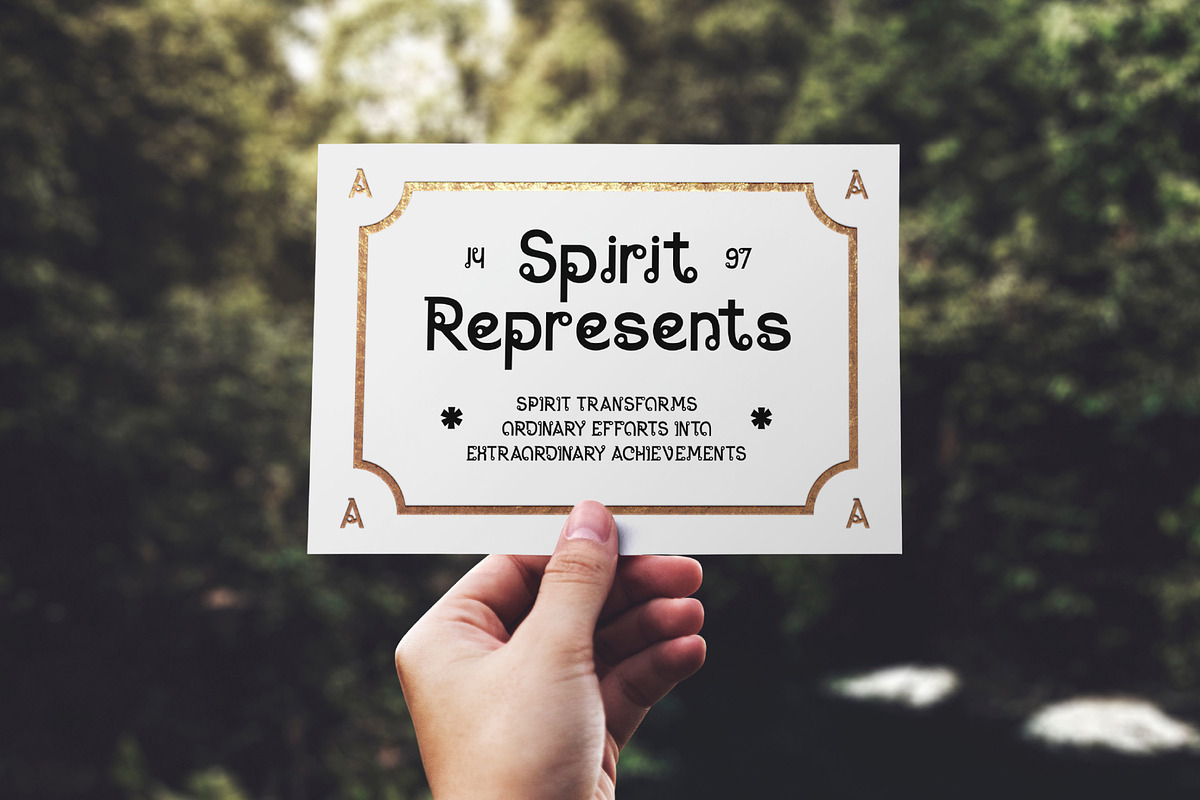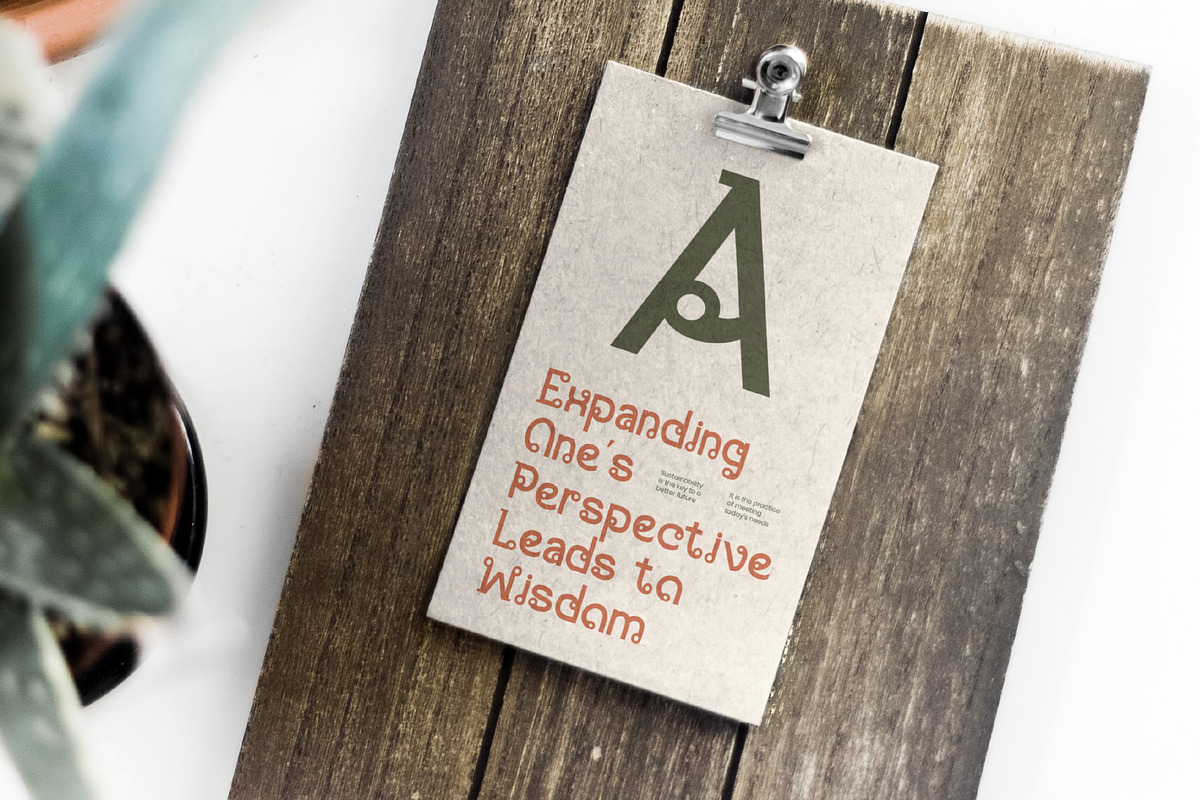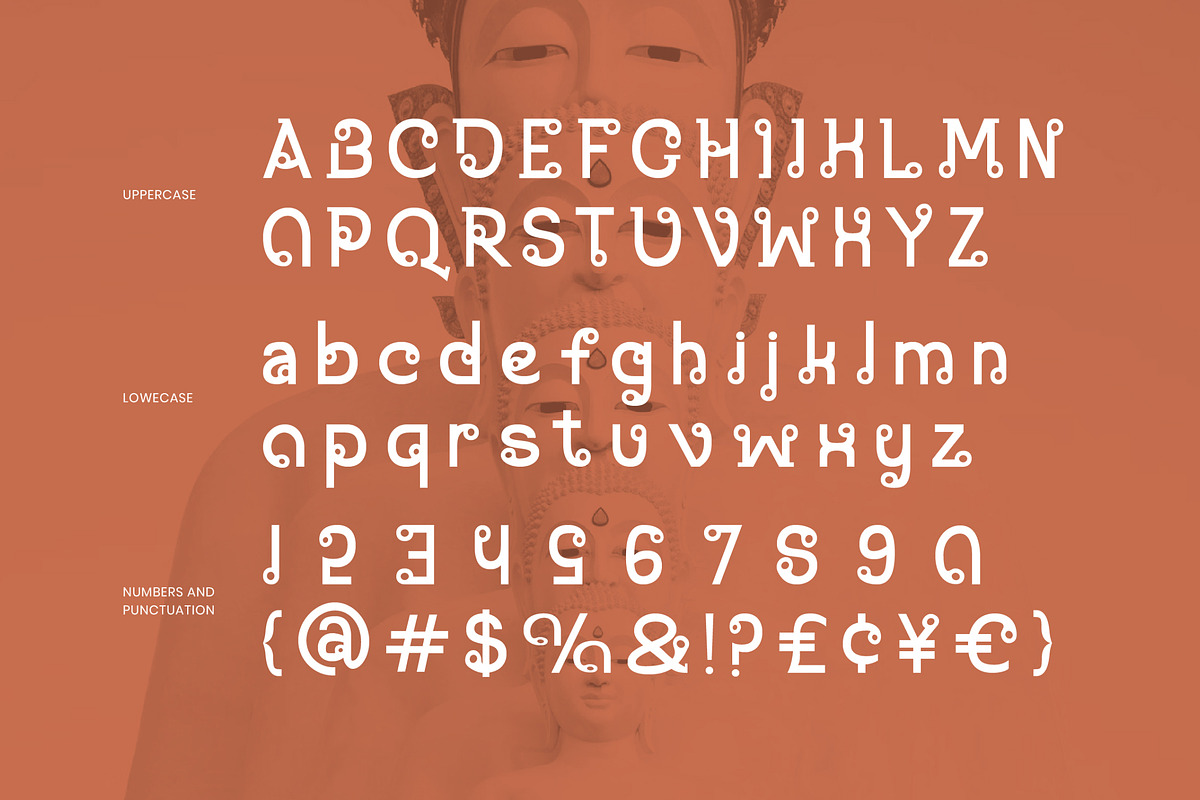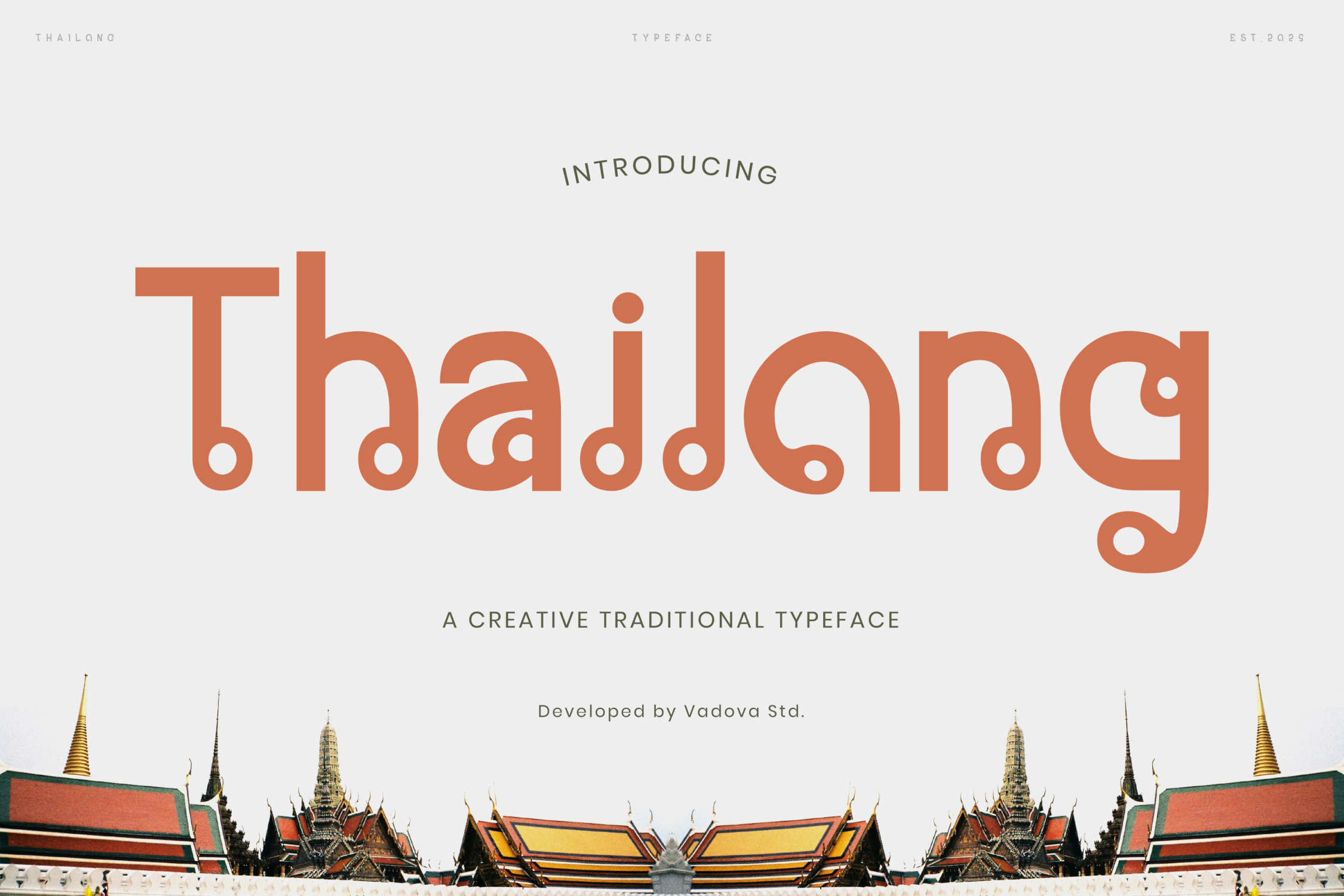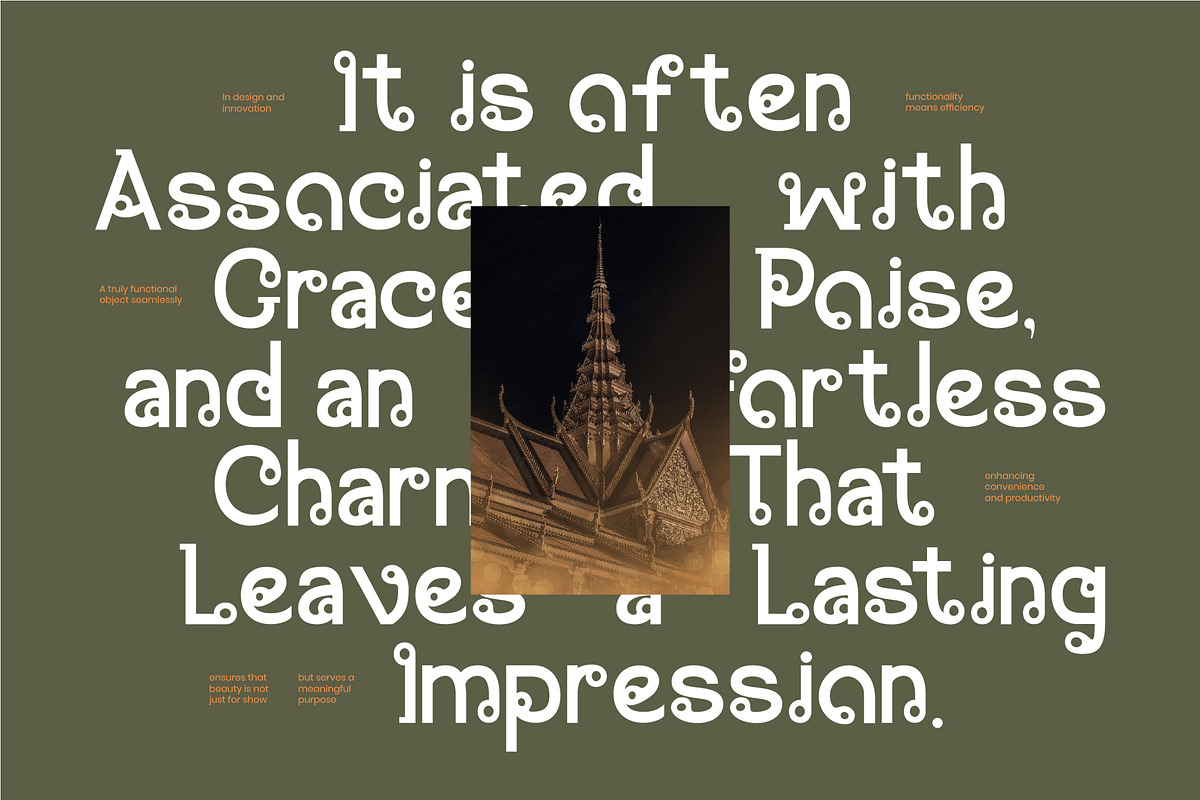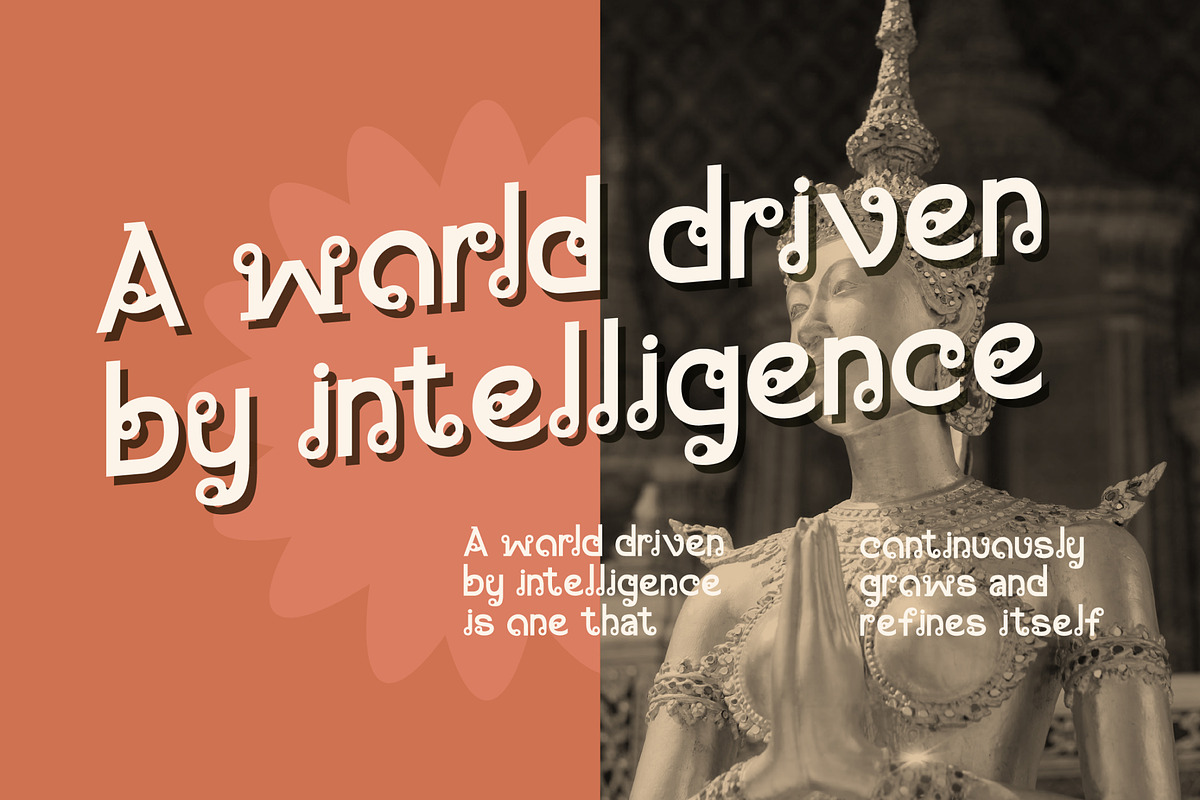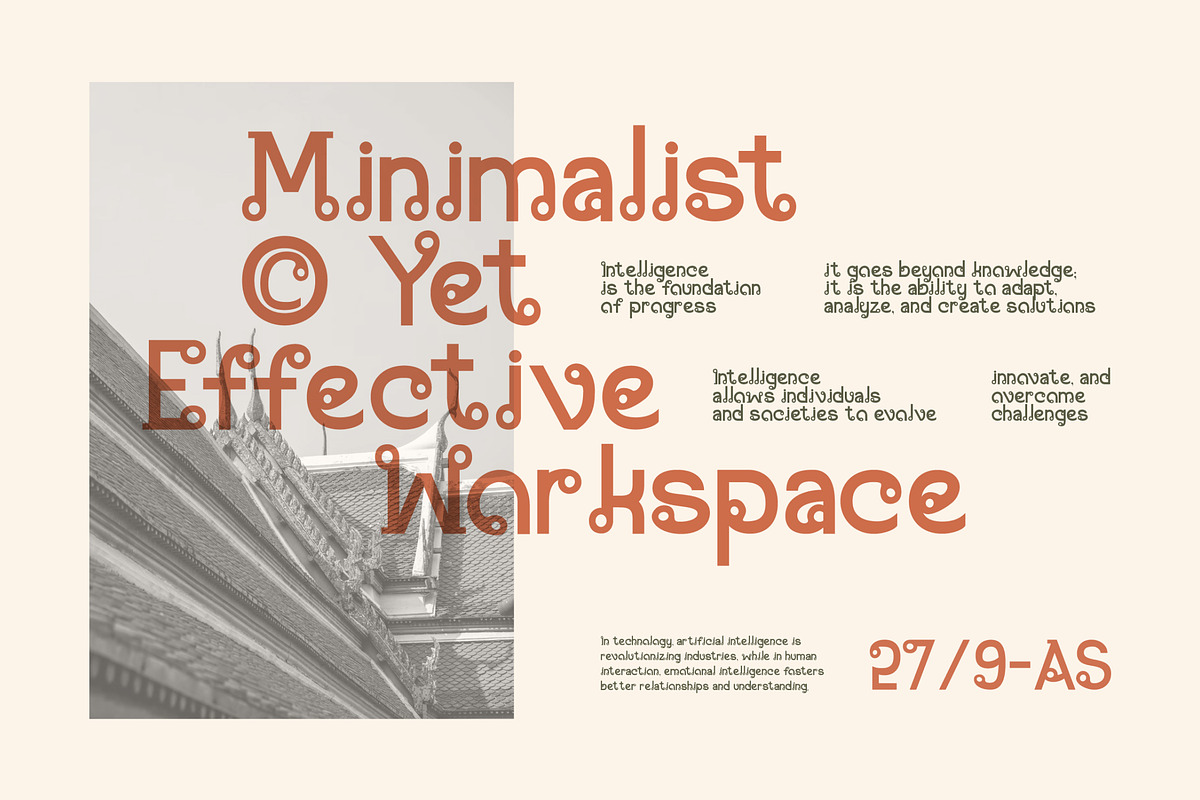
Thailong – Thai Traditional Font
Thailongis a Thai traditional display font designed to capture the beauty of Southeast Asian artistry through refined loops, balanced geometry, and elegant decorative details. The font features rounded terminals and rhythmic curves inspired by traditional Thai lettering — blending cultural aesthetics with modern clarity. It’s ideal for branding projects that celebrate heritage while maintaining a contemporary visual tone.
Its graceful form and cultural depth make it a perfect choice for projects related to travel, cultural institutions, traditional events, and editorial designs seeking an authentic Southeast Asian touch.
Font Highlights
Thai-inspired decorative display style
Rounded terminals with smooth transitions
Refined proportions for modern layouts
Works well for large text and headlines
Why Designers Love Thailong
Cultural Sophistication – Reflects Thai design heritage with subtle modernity.
Decorative Elegance – Balanced terminals create visual rhythm and beauty.
Versatile Identity Font – Perfect for cultural branding, packaging, or posters.
Regional Character – Evokes the architectural and ornamental Thai aesthetic.
Relevance and Use Cases is perfect for travel branding, temple and festival posters, tourism campaigns, restaurant logos, traditional product packaging, cultural exhibitions, and editorial titles inspired by Asian heritage design.